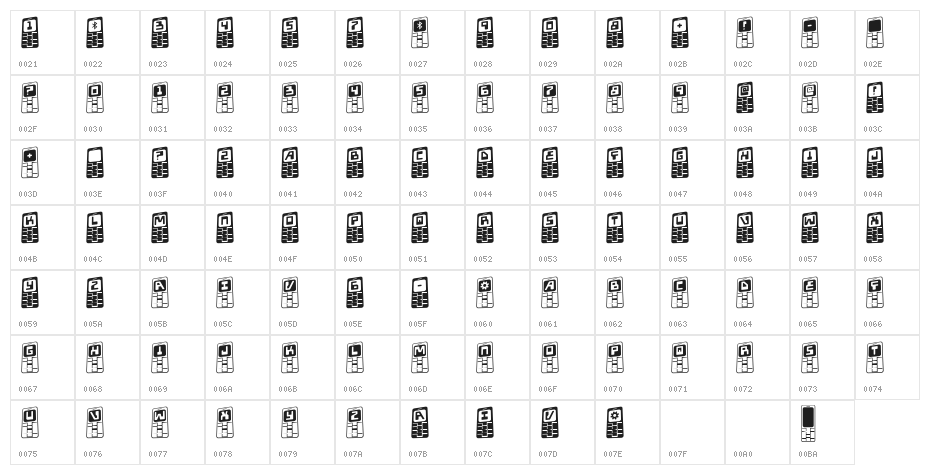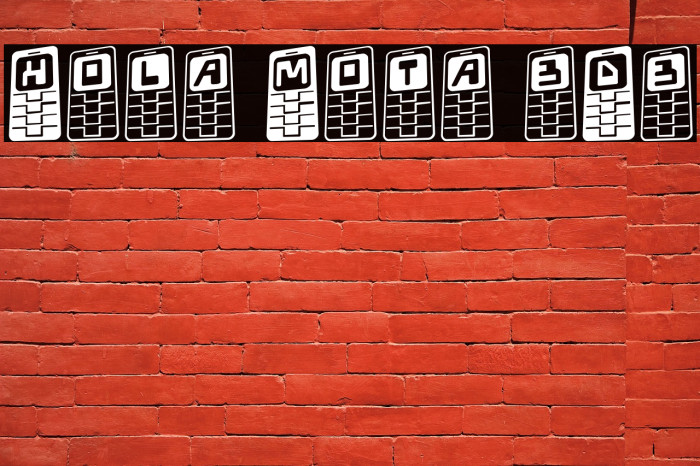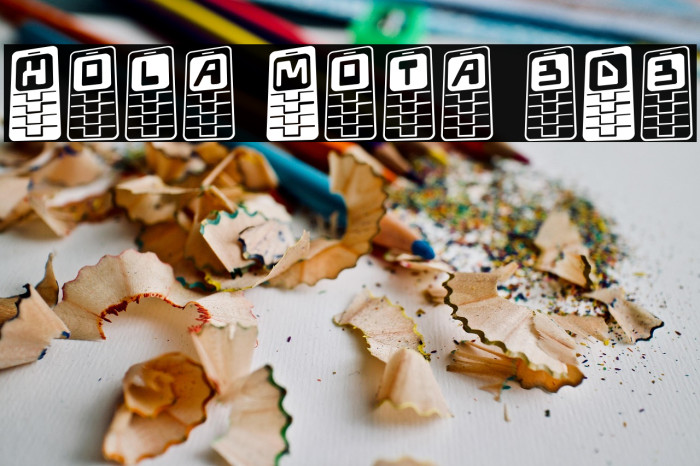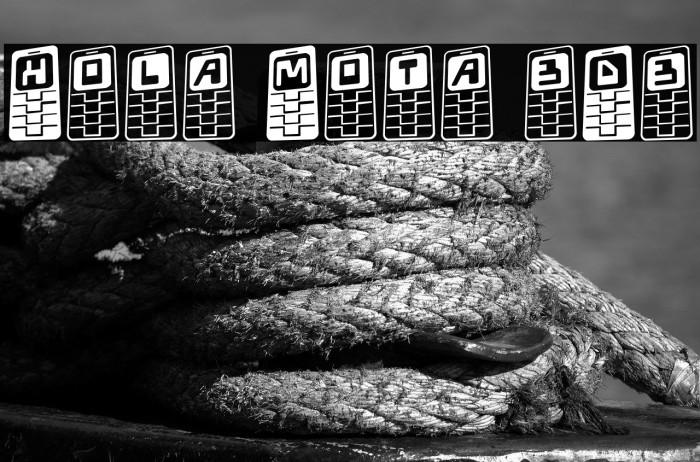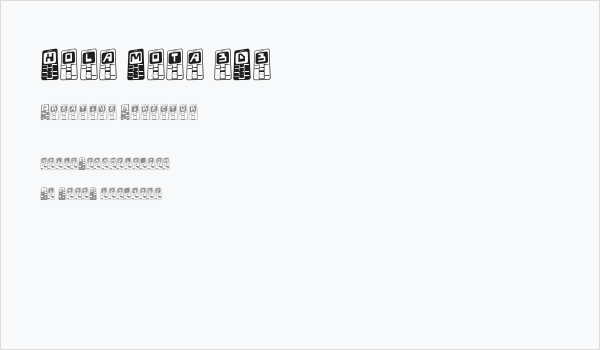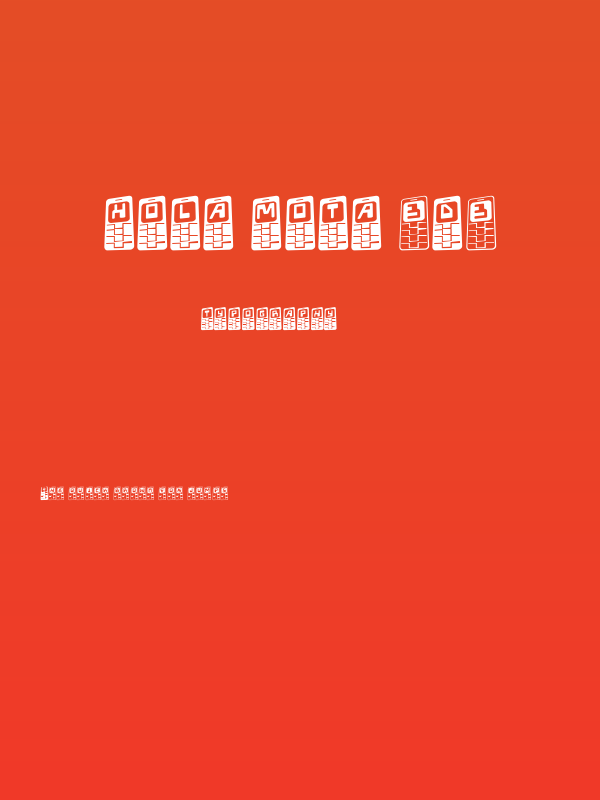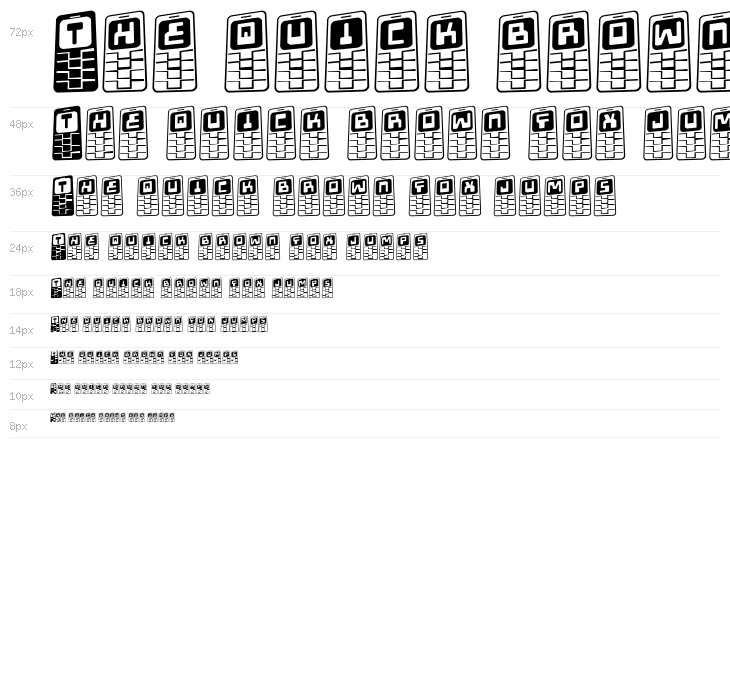
Hola Mota 3D3 Font
Hola Mota 3D3 Description
This font features a bold, three-dimensional style with a playful and modern aesthetic. Each character is enclosed within a rectangular, slightly tilted frame, giving the impression of a digital keypad or retro gaming interface. The letters and numbers are blocky and geometric, with a consistent thickness that enhances readability while maintaining a unique visual appeal. The special characters are designed to match the overall theme, ensuring a cohesive look across all elements. This font's distinct style makes it ideal for projects that require a futuristic or tech-inspired vibe.
| Proposed Projects | Ideal for video game titles, tech-themed posters, digital interfaces, and creative branding projects. |